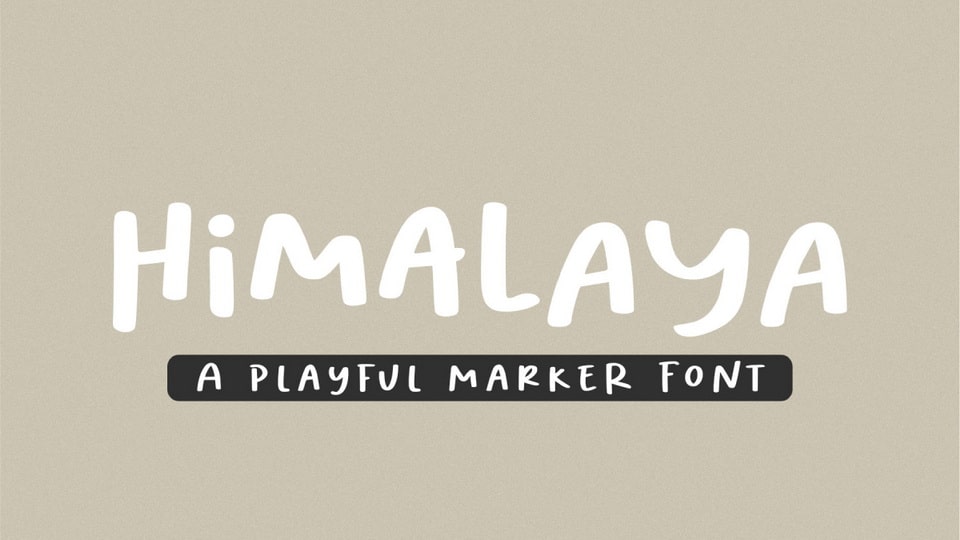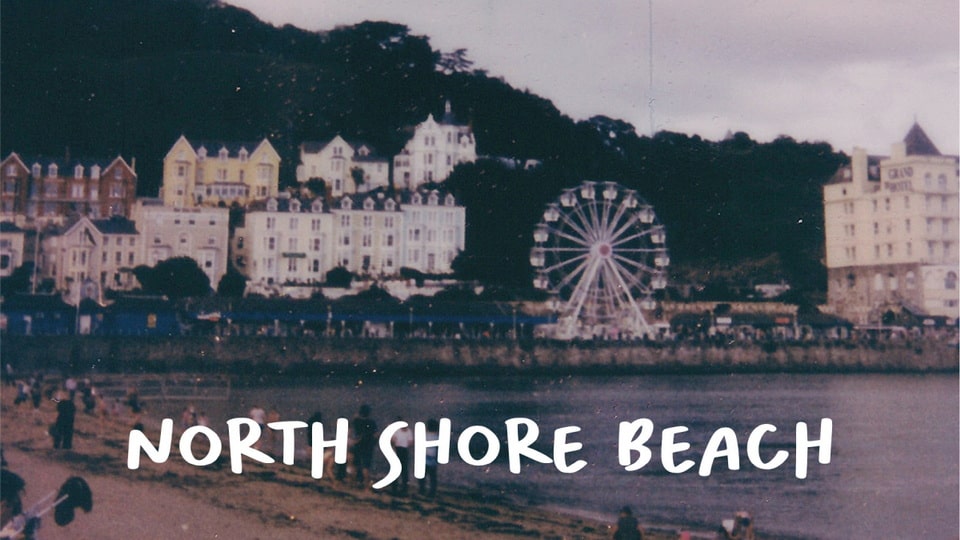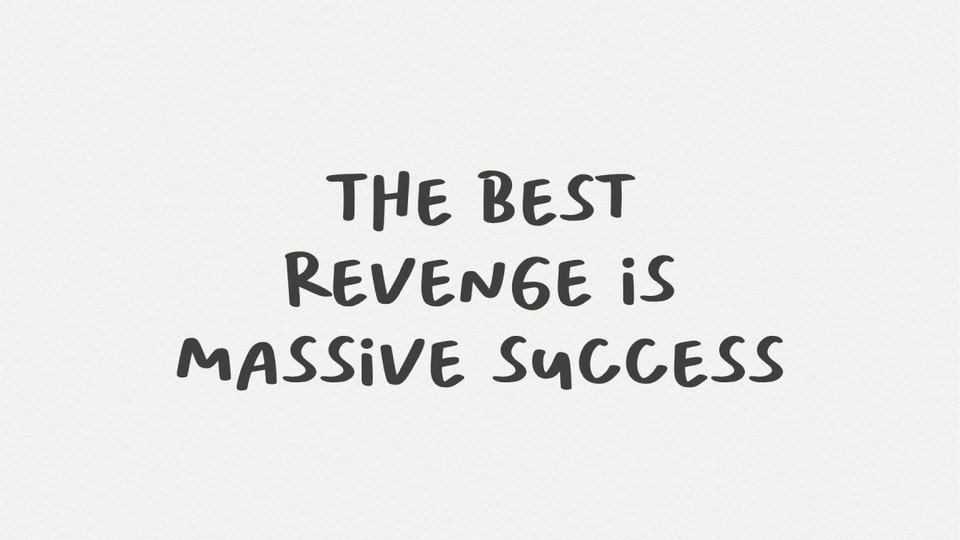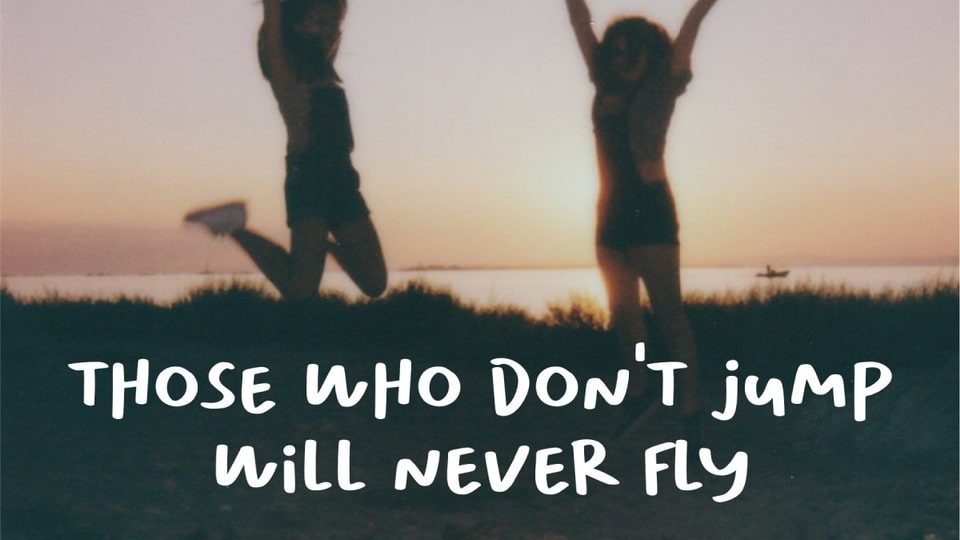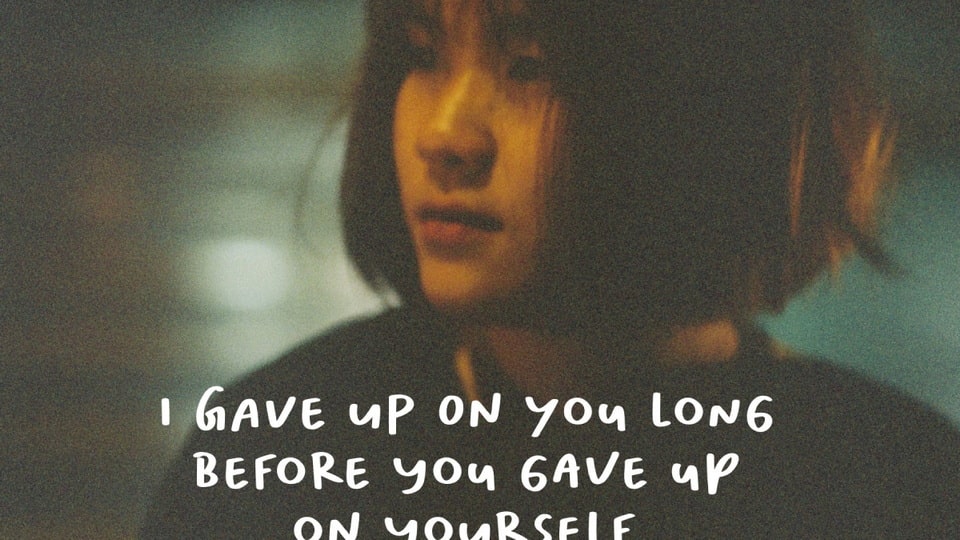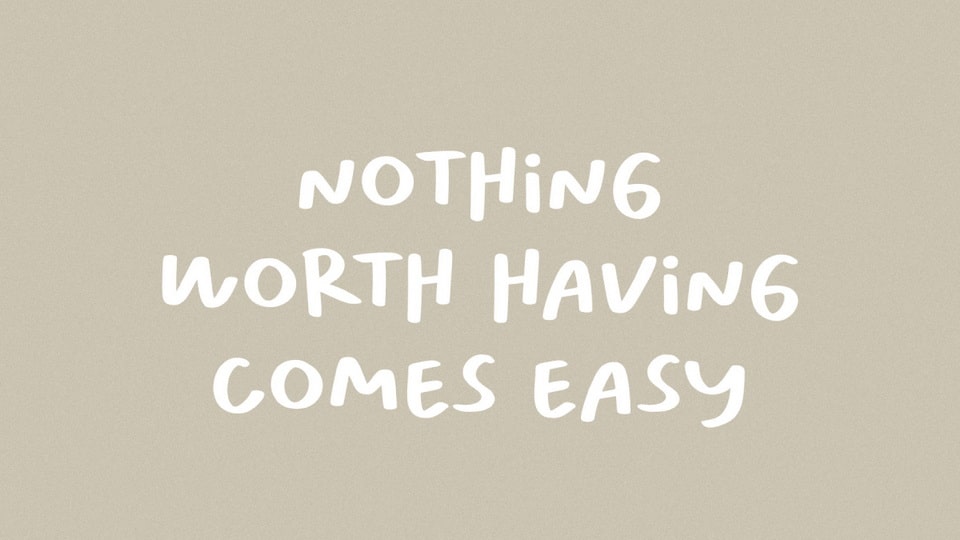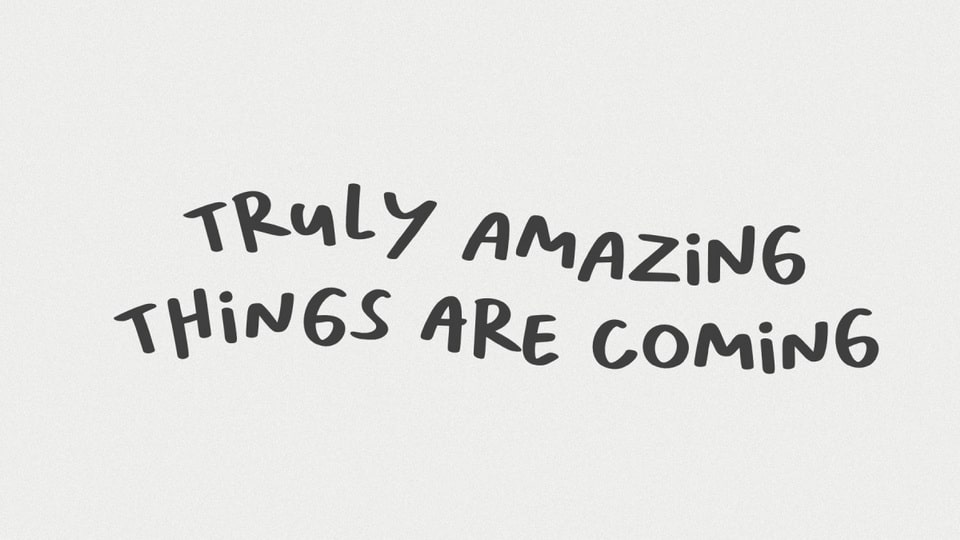
Himalaya is a fun marker font with a playful style which is perfect to make any design stand out. This font is perfect for creating quotes, logos, creating handwritten notes or just adding a hand-written touch to any project.